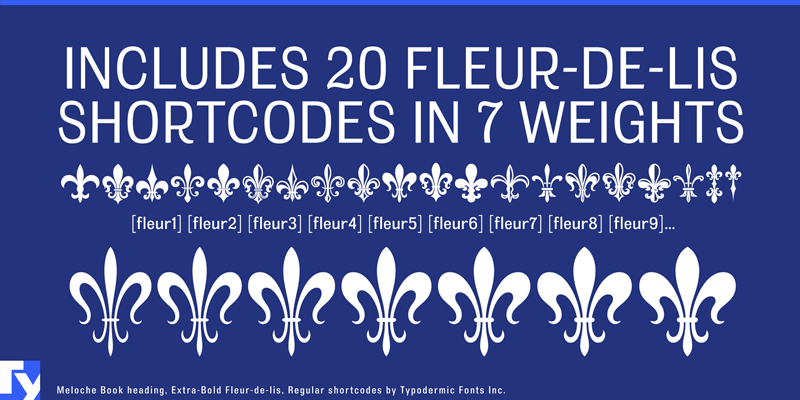
Meloche is a unique grotesque sans-serif typeface influenced by hand-painted French signs of the late nineteenth century. It’s available in 7 weights and obliques. OpenType features include numeric ordinals, fractions, old-style numerals and a simple Q. In OpenType savvy applications you can access 20 weight-matched fleur-de-lis symbols by entering the shortcodes [fleur1] [fleur2] [fleur3] etc. Meloche supports Greek, Vietnamese, Cyrillic, Pan-Nigerian and almost all Latin based languages. This font includes a license that allows free commercial use: sometimes referred to as a desktop license. This allows you to install the font on a computer and use it to create posters, web graphics, game graphics, t-shirts, videos, signs, logos and more. Read the license agreement for details. If you'd like to embed this font in an app, ebook, on the web or anything that's not covered by the desktop license agreement, visit the link below. You'll find distributors who offer different types of licenses or you can contact me for help. http://typodermicfonts.com/meloche/ This free font is part of a larger font family. Check out the rest of the family through the link above. |